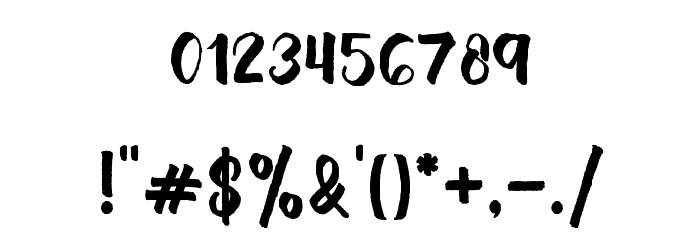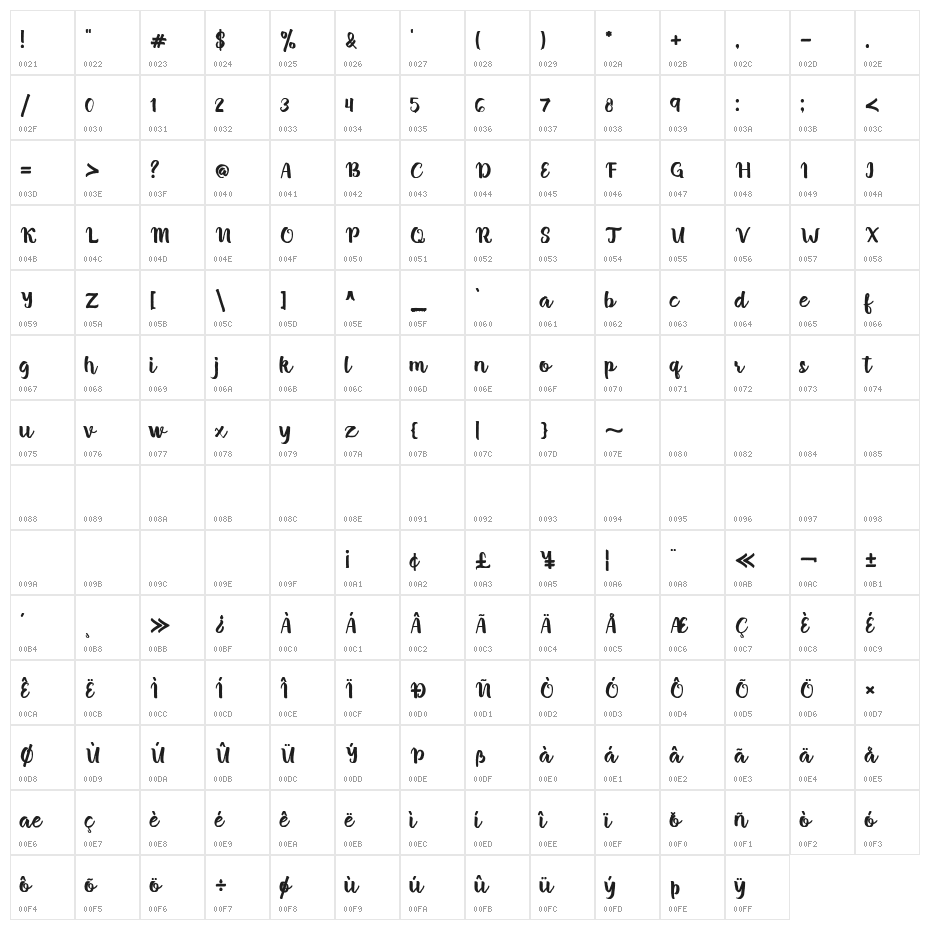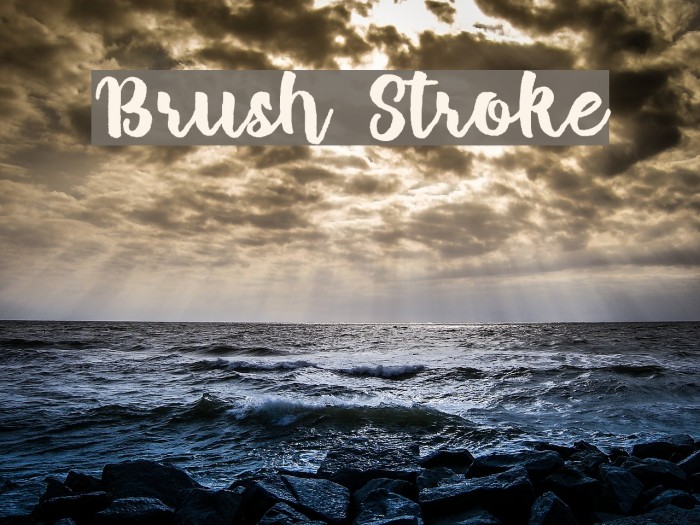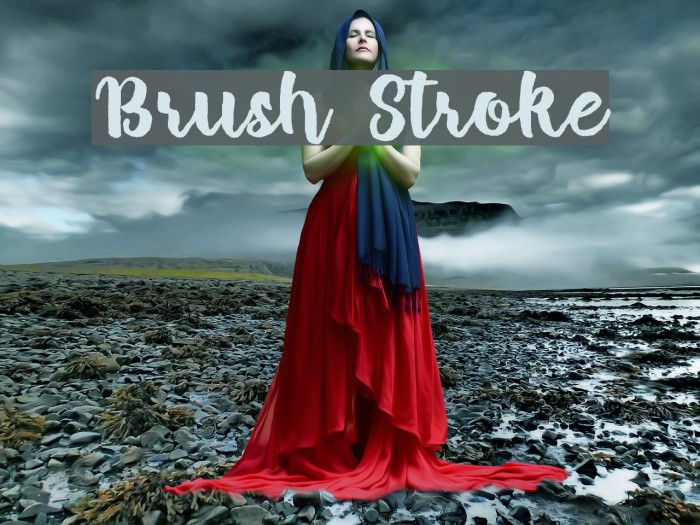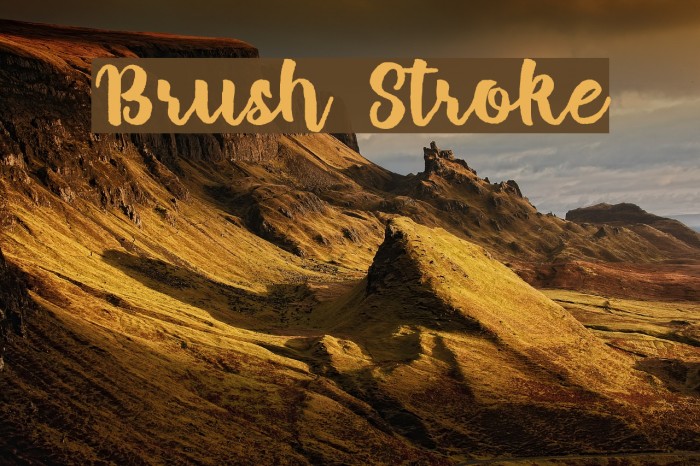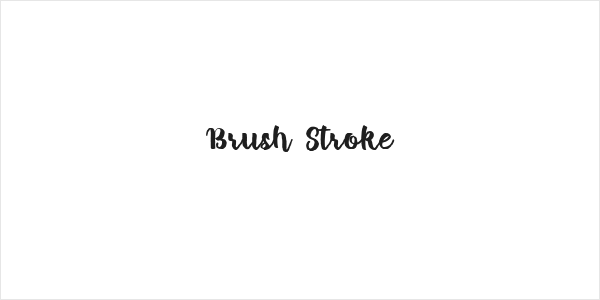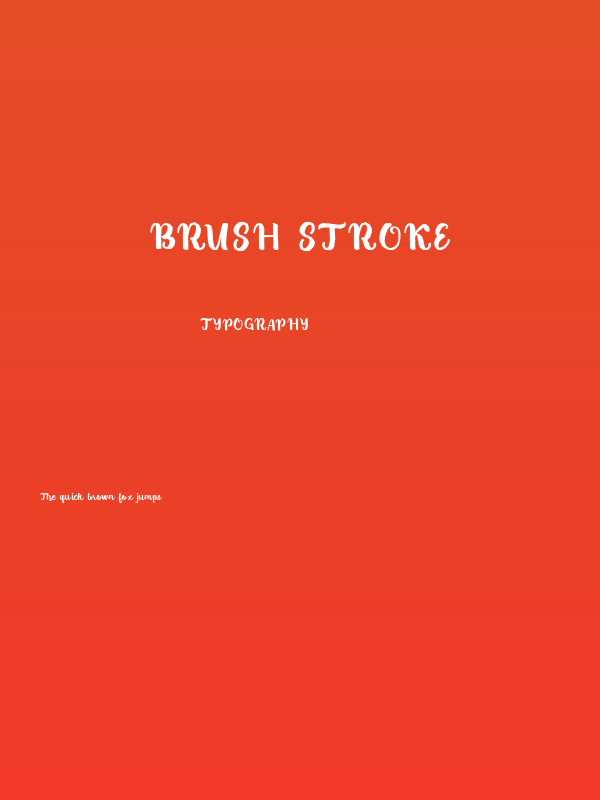
Brush Stroke Font
Brush Stroke Description
This font features a bold and expressive brush-stroke style, characterized by its fluid and dynamic letterforms. The uppercase and lowercase letters exhibit a hand-painted appearance, with varying stroke widths that add a sense of movement and energy. The numerals and special characters maintain this artistic flair, making the font suitable for creative and informal applications. The overall design is reminiscent of calligraphy, with a modern twist that makes it versatile for various design projects.
Overall StyleModern, Decorative
Proposed ProjectsIdeal for branding, posters, invitations, and any project requiring a creative, artistic touch.